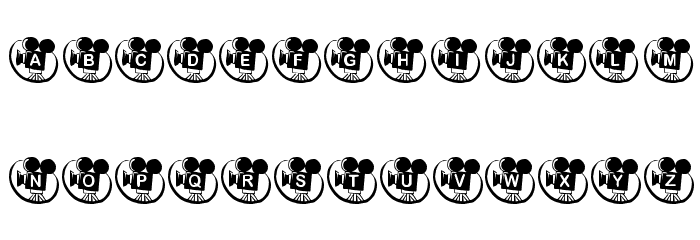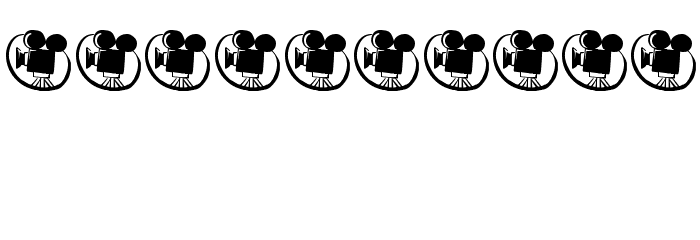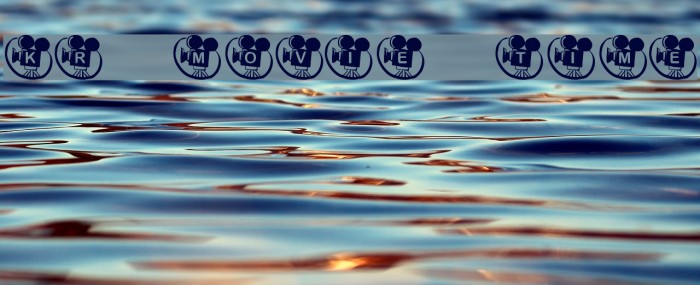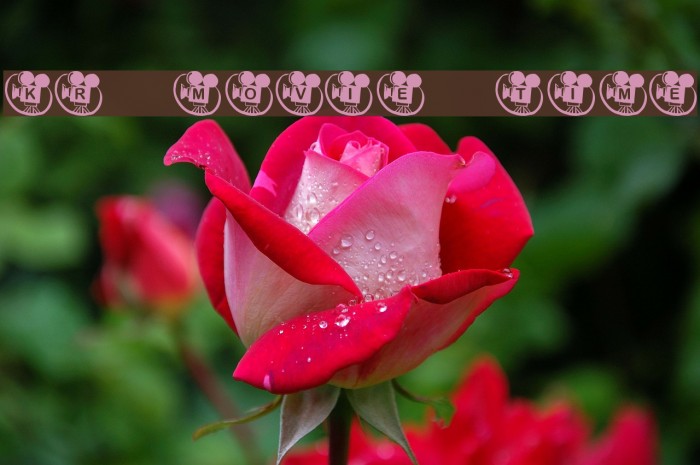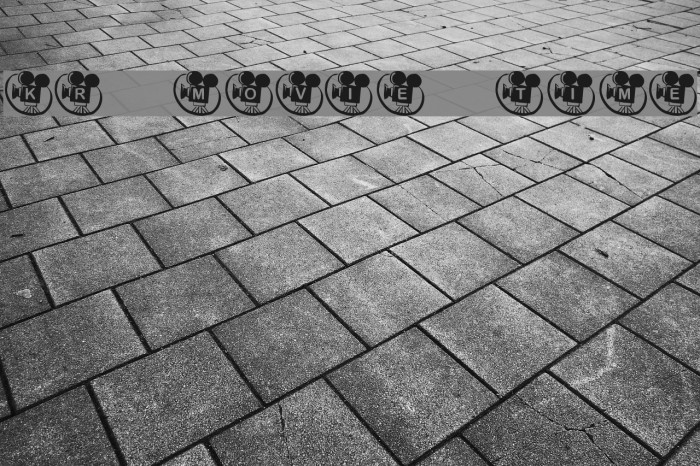
KR Movie Time Font
This font features a unique design where each character is enclosed within a circular emblem that resembles a film reel, complete with a stylized movie camera icon. The letters are bold and capitalized, providing a strong visual impact. The design is highly decorative, making it ideal for thematic projects related to cinema or entertainment. The characters are evenly spaced within their circular frames, maintaining a consistent and balanced appearance. This font's playful and thematic style makes it stand out, perfect for capturing attention in creative projects.
A decorative font with characters enclosed in film reel emblems, ideal for cinema-themed designs.
- Proposed Projects: Perfect for movie posters, film festival promotions, entertainment event flyers, and themed party invitations.
- Use Case: Logos, Headlines, Themed Designs